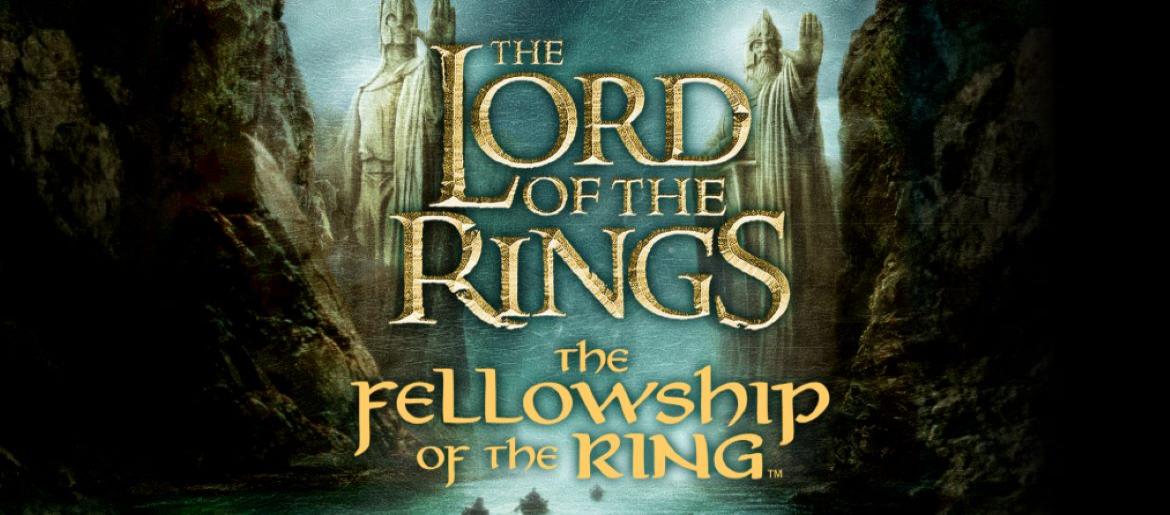
The Lord of the Rings Font
The Lord of the Rings Font stands as one of fantasy cinema’s most distinctive and evocative lettering styles. Drawing from J.R.R. Tolkien’s expansive universe and Peter Jackson’s visionary film adaptation, the font immediately whisks viewers back to the realms of Middle-earth. The design echoes the gilded inscriptions from the opening sequences, featuring an archaic, mystical quality that mirrors the narrative’s profound mythology and enduring appeal.
Much like the literary and cinematic masterpieces that inspired it, this typeface embodies an aura of wonder, enchantment, and epic journeying. Creators and enthusiasts frequently employ it for promotional materials, tribute artwork, event graphics, and any imaginative endeavor requiring a fantasy aesthetic. The lettering perfectly captures the scale of Tolkien’s creation, from peaceful hobbit-holes to dark volcanic landscapes, establishing itself as a preferred choice for mythical-themed design work.
Although the production company never issued an official typeface, skilled designers have developed faithful recreations that closely match the films’ distinctive lettering. The prominent Ringbearer Font reproduces the appearance of the movie branding, while the Tolkien Font alternative draws inspiration from the author’s personal handwriting and Middle-earth’s visual language. Both are available as complimentary downloads and see widespread use throughout creative circles.
The enduring appeal of this typography demonstrates how visual design can help preserve a story’s legacy. Just as Middle-earth’s magic transcends time, this font continues to spark the imagination of emerging generations of storytellers and artists. Whether crafting mythical narratives or simply evoking the essence of Tolkien’s universe, this typeface serves as an ideal selection for bringing fantasy to life.